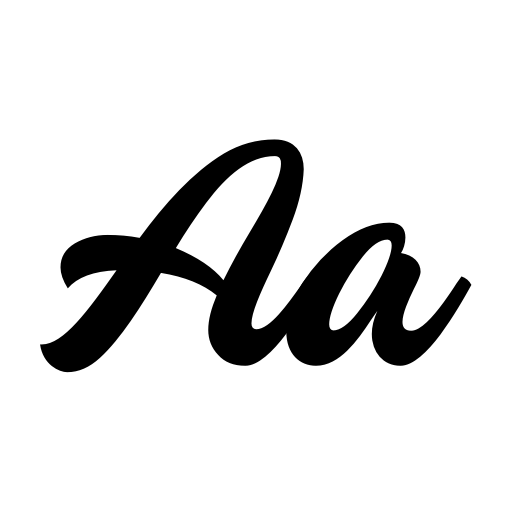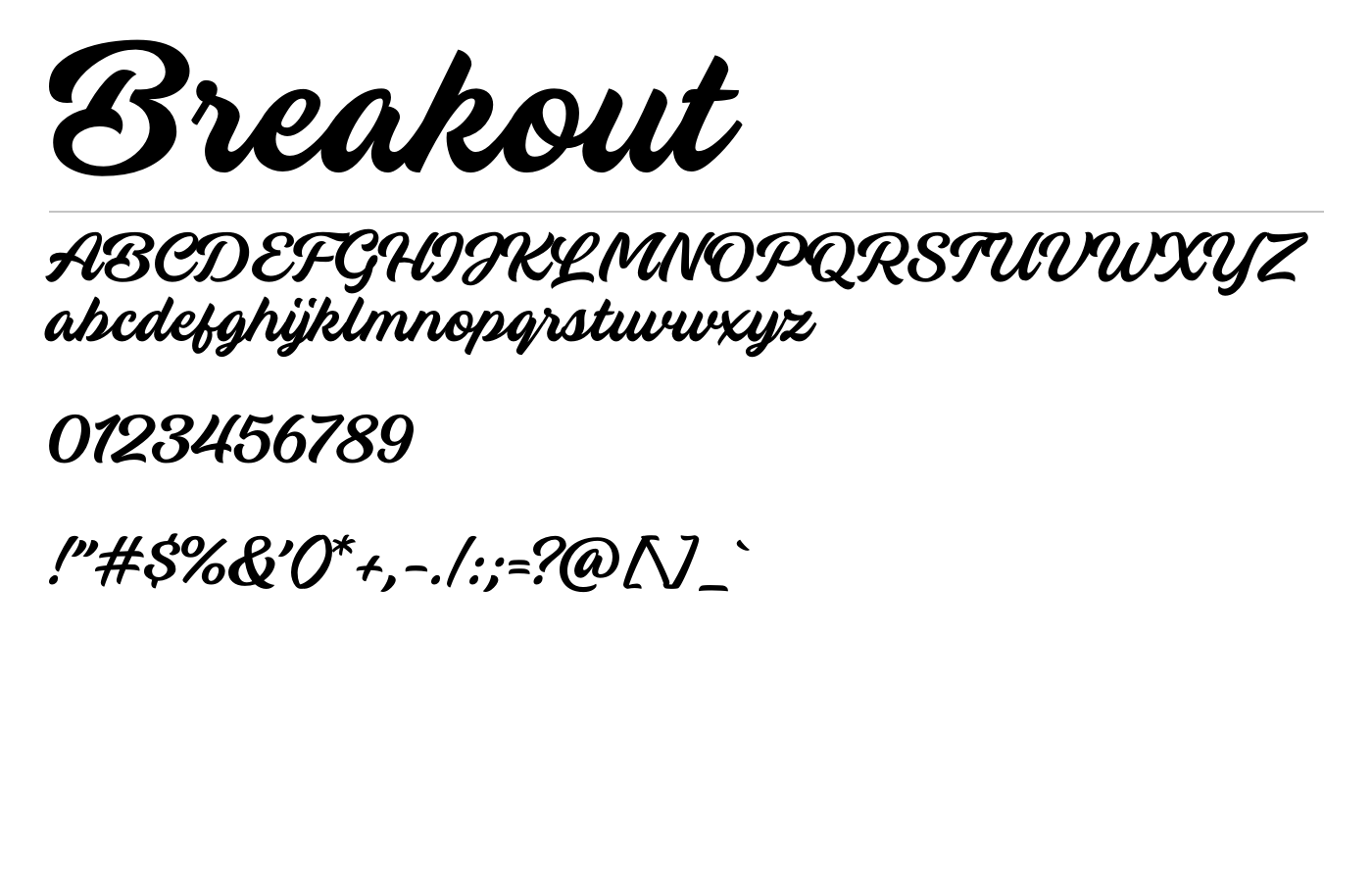
Breakout is a bold, script-style font that features smooth, flowing letterforms with a strong vintage flair. Its lively curves and consistent medium contrast give it an elegant yet approachable feel, making it ideal for logos, headlines, and branding projects that seek a touch of classic charm and personality. This font works especially well in creative and stylish contexts where a warm and inviting tone is desired.
Breakout Font
About Breakout Font
| Font family | Breakout Font |
| Designer | Annas Alam Yahya |